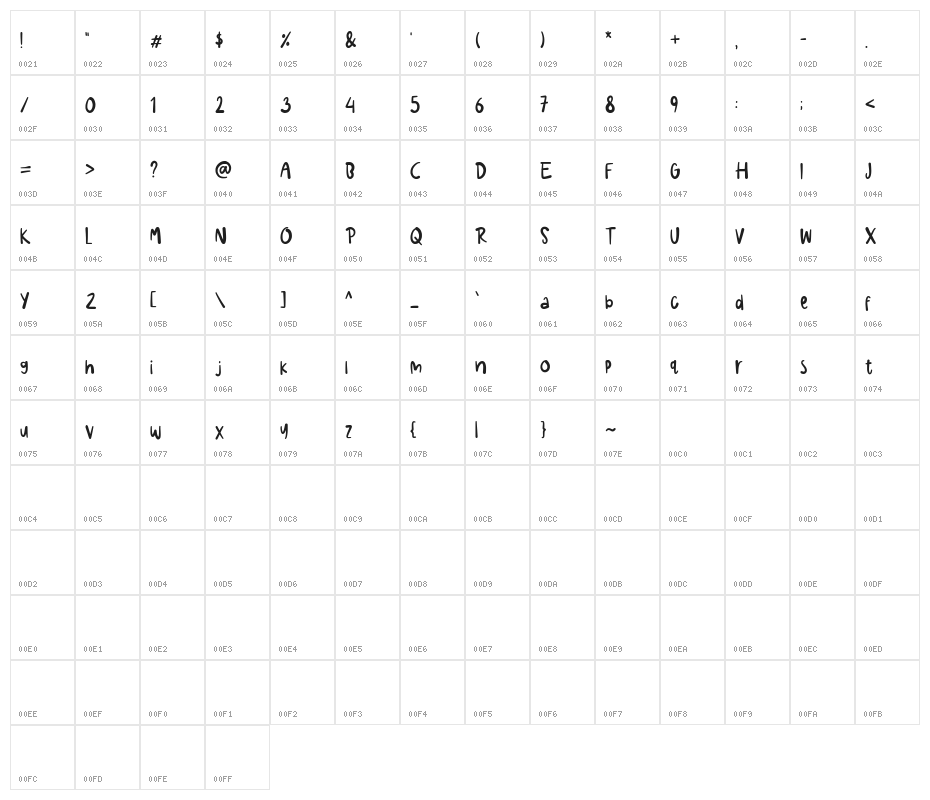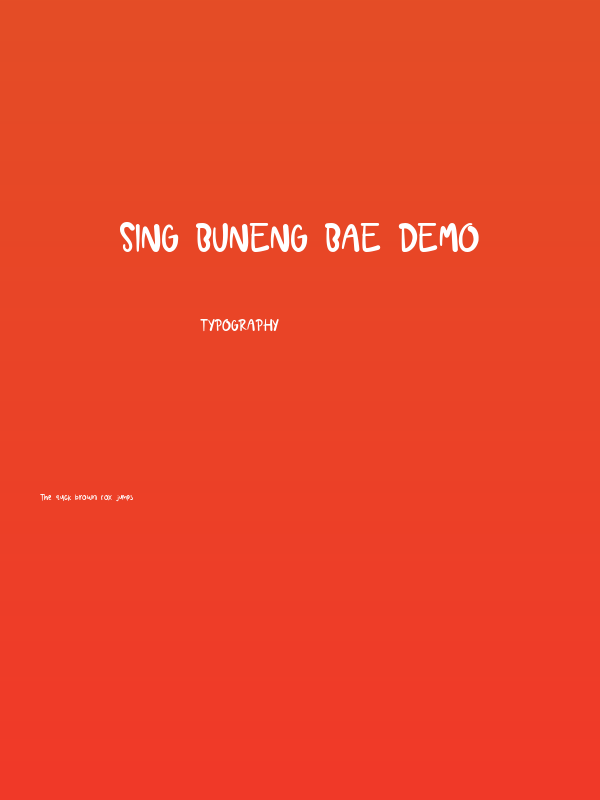
Sing Buneng Bae Demo Font
Sing Buneng Bae Demo Description
This font features a playful and casual handwritten style, characterized by its rounded and slightly irregular letterforms. The uppercase and lowercase letters maintain a consistent flow, giving it a friendly and approachable appearance. The numerals and special characters are designed to match the overall aesthetic, ensuring a cohesive look across all text elements. The strokes are moderately thick, providing good readability while retaining a whimsical charm. This font is versatile, suitable for both digital and print media, and can add a personal touch to any project.
| Use Case | Headlines, Logos, Social Media |
| Proposed Projects | Ideal for greeting cards, children's books, casual branding, and social media graphics. |